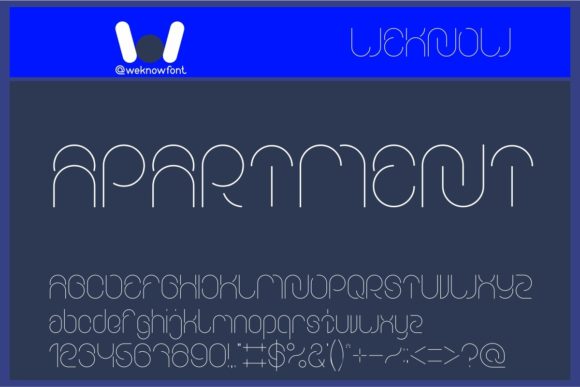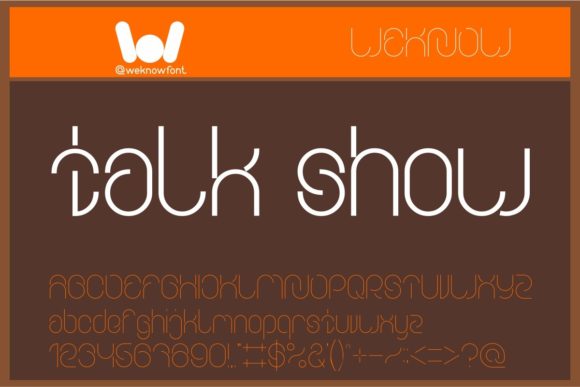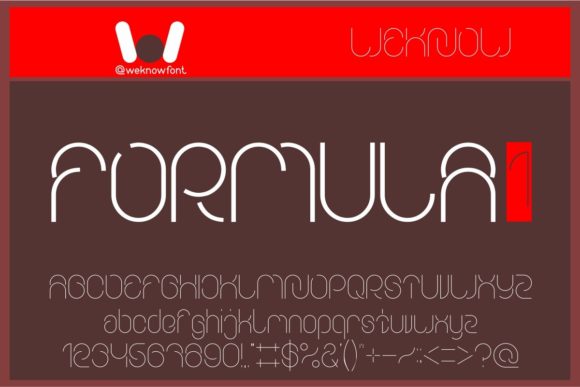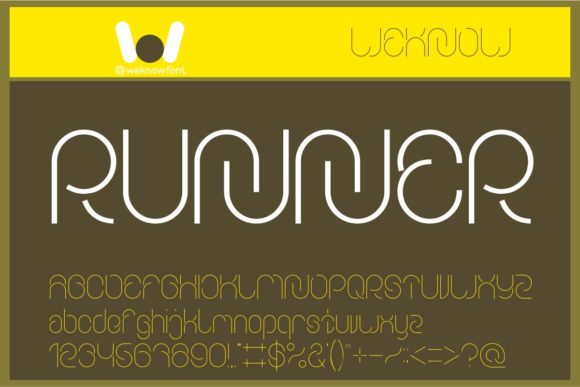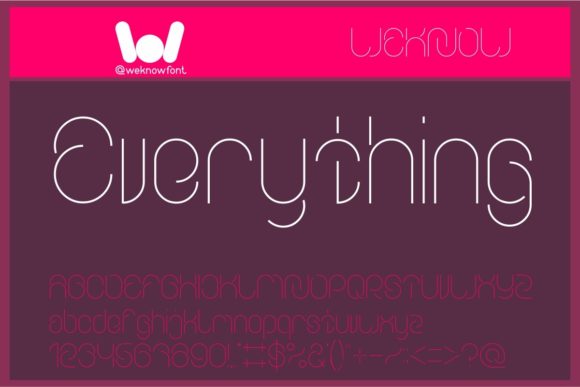
Introducing Everything Font: The Ultimate Display Font for Creative Projects
Are you tired of using the same old fonts for your design projects? Look no further than Everything Font, a minimal and clean display font that’s perfect for making your creative ideas stand out. In this article, we’ll dive into the features and benefits of Everything Font, and explore how it can elevate your designs to the next level.
What is Everything Font?
Everything Font is a modern display font designed to be versatile and adaptable. Its clean and minimalist aesthetic makes it an excellent choice for a wide range of projects, from branding and advertising to packaging and digital media. The font’s simplicity and elegance ensure that it can be paired with a vast array of design styles, making it an excellent addition to any designer’s toolkit.
Key Features of Everything Font
- Minimal and Clean Design: Everything Font boasts a sleek and uncluttered design that’s perfect for creating a lasting impression.
- High Versatility: The font’s neutral style allows it to be easily paired with a wide range of design styles, making it suitable for a vast array of projects.
- Excellent Legibility: The font’s clear and concise letterforms ensure that your message is communicated effectively, even at smaller font sizes.
- Extensive Character Set: Everything Font includes a comprehensive character set, covering a wide range of languages and special characters.
Benefits of Using Everything Font
So, why should you choose Everything Font for your design projects? Here are just a few benefits of using this exceptional display font:
- Instant Professionalism: Everything Font’s clean and minimalist design instantly elevates your designs, giving them a professional and polished look.
- Enhanced Creativity: The font’s versatility and adaptability allow you to experiment with different design styles and ideas, helping you to push the boundaries of your creativity.
- Time-Saving: With Everything Font, you can quickly and easily create stunning designs without spending hours searching for the perfect font.
How to Use Everything Font in Your Designs
Using Everything Font in your designs is easy. Here are a few tips to get you started:
- Pair it with Bold Colors: Everything Font looks stunning when paired with bold, vibrant colors. Experiment with different color combinations to create eye-catching designs.
- Experiment with Typography: The font’s versatility allows you to experiment with different typography styles, such as mixing bold and light weights or using all caps and lowercase letters.
- Use it for Headings and Titles: Everything Font is perfect for creating striking headings and titles that grab attention and draw the reader in.
In conclusion, Everything Font is an exceptional display font that’s perfect for designers and crafters looking to elevate their designs. Its minimal and clean design, high versatility, and excellent legibility make it an excellent choice for a wide range of projects. With Everything Font, you can instantly add professionalism, enhance your creativity, and save time. So why wait? Download Everything Font today and discover how it can make your designs stand out!